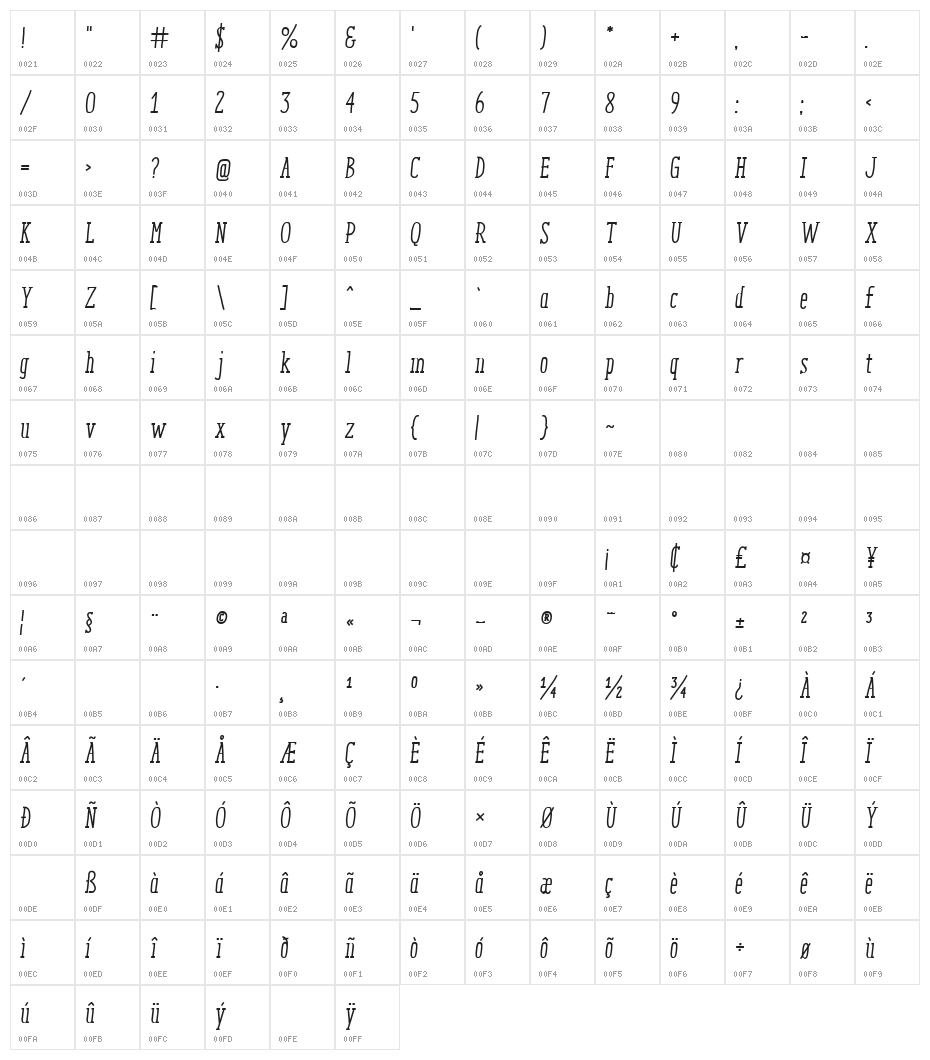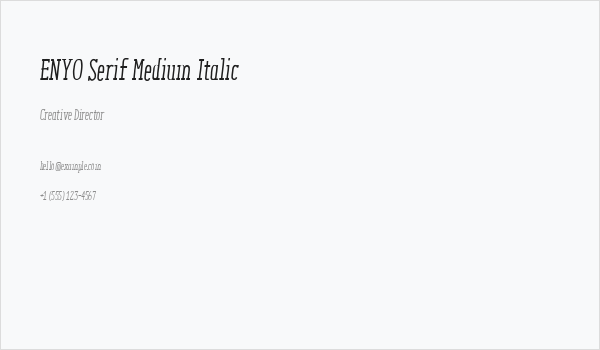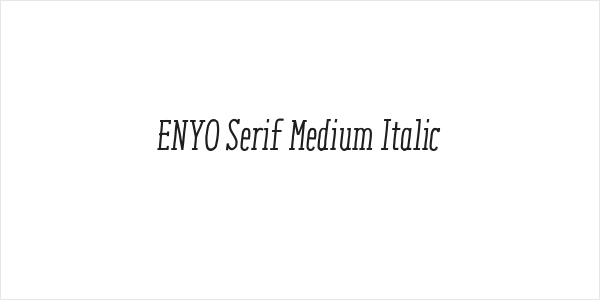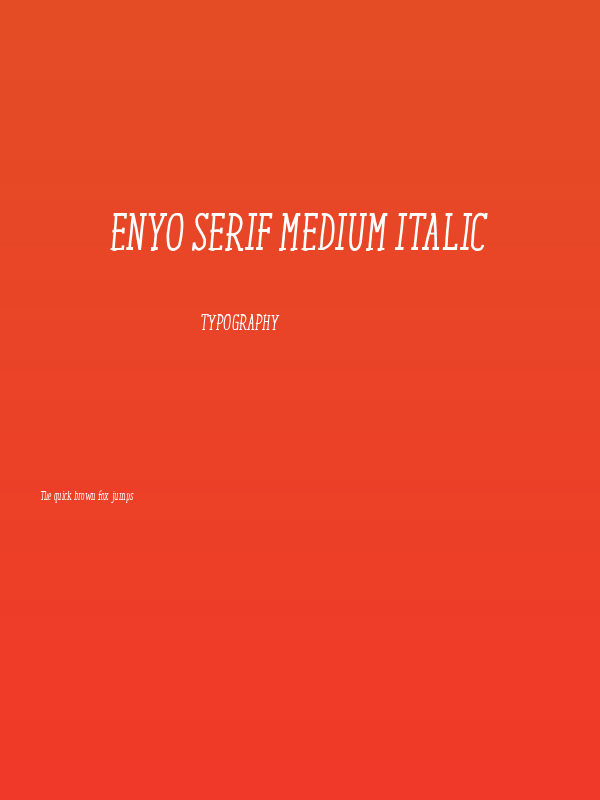
ENYO Serif Medium Italic Font
ENYO Serif Medium Italic Description
This font features a classic serif style with a medium weight and an italic slant, giving it a sophisticated and elegant appearance. The serifs are pronounced, adding a touch of formality and tradition. The italic nature of the font introduces a sense of motion and fluidity, making it suitable for dynamic and expressive text. The characters are well-proportioned, with a moderate contrast between thick and thin strokes, enhancing readability while maintaining a stylish look. The spacing between characters is normal, ensuring clarity and legibility across various sizes. This font is versatile, suitable for both digital and print media, and can be effectively used in a variety of design contexts.
| Proposed Projects | Ideal for editorial design, book covers, formal invitations, and branding materials that require a classic yet dynamic touch. |